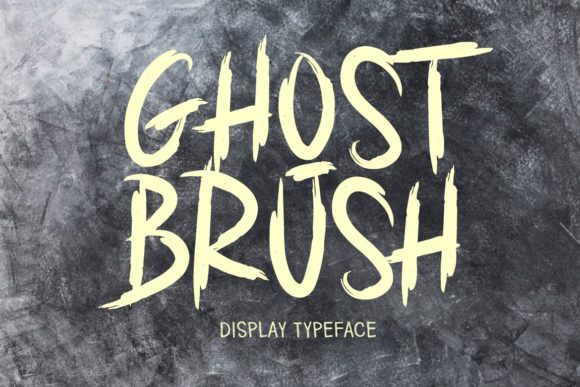
Embark on a Typographic Adventure with Ghost Brush Font - The Quintessential Display Font for Quote Tattoos.
In a world teeming with digital noise, true artistry commands attention. Ghost Brush Font, an exceptional display font, emerges as a beacon of originality, inviting you to elevate your creative expressions to unprecedented heights. Its bold, captivating strokes, reminiscent of hand-painted letters, evoke a sense of genuine authenticity, making it the perfect font for quote tattoos.
Immerse yourself in the world of Ghost Brush, where imagination thrives, and creativity knows no bounds. This font is not merely a collection of characters; it's an artistic gateway that transforms your words into captivating works of art.
Unleash the boundless potential of Ghost Brush and let your designs radiate with individuality. Its unique letterforms, crafted with meticulous precision, will captivate your audience, leaving an indelible impression that resonates long after the last pixel fades away.
Whether you're a seasoned graphic designer seeking a touch of distinction or an aspiring artist eager to unleash your creative potential, Ghost Brush Font is your ultimate companion. Its versatility knows no limits, effortlessly complementing logos, branding, posters, social media graphics, and an endless array of digital creations.
Don't settle for ordinary typefaces that fail to ignite your imagination. Embrace the extraordinary with Ghost Brush Font. Let your thoughts take flight, knowing that this remarkable font will effortlessly translate them into visual masterpieces that captivate and inspire.